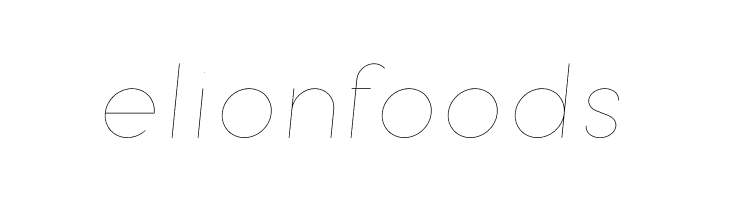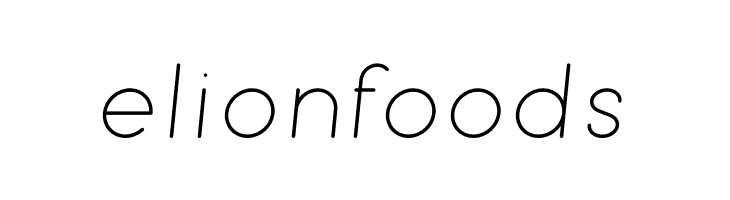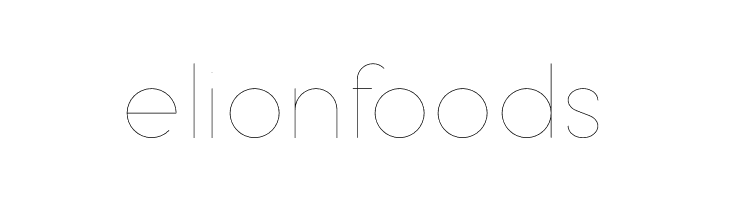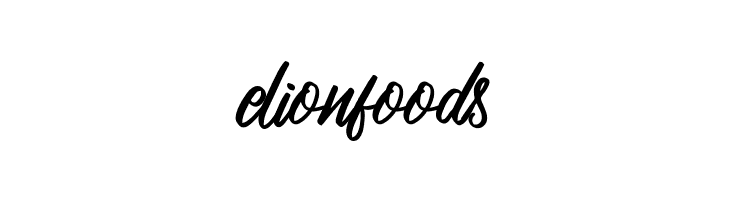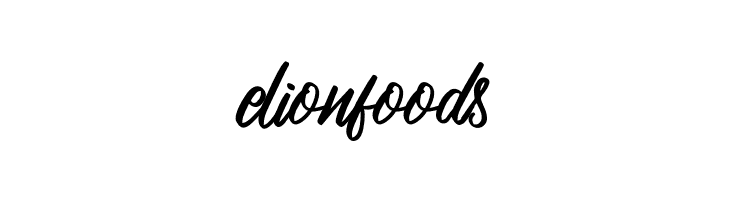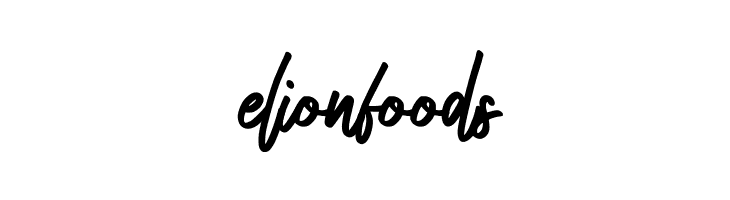
A sleek, modern hairline oblique font with a minimalistic and elegant design.
A sleek, ultra-thin font with a modern, minimalist design.
A minimalist, thin, and modern font with elongated strokes and a sleek appearance.
A sleek, italic hairline font with geometric precision and minimalistic elegance.
A light, italicized font with a modern and minimalist style.
A minimalistic, ultra-thin font with geometric precision and modern elegance.
A sleek, modern font with thin, geometric strokes and a minimalist aesthetic.
A bold, flowing script font with elegant, cursive letterforms.
A dynamic and elegant script font with fluid, cursive letterforms.
A lively handwritten font with fluid, cursive letterforms and varying stroke thickness.